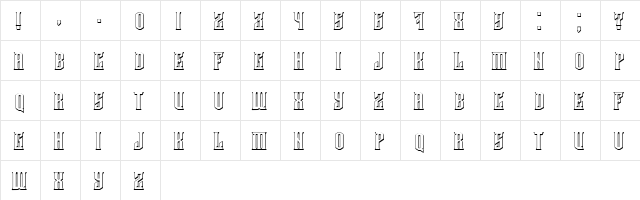
Damages 3D Regular Font Preview
Damages 3D Regular
Damages 3D Regular Font Details
Design Context for Damages 3D Typeface
Damages 3D is a composed and adaptable typeface that performs quietly and consistently across a wide range of design contexts.